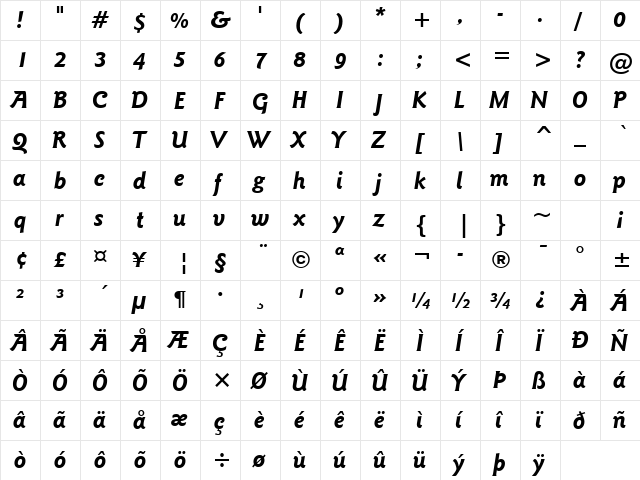
GoudySans Md BT Bold Italic
Design Context for GoudySans Md BT Typeface
GoudySans Md BT offers clean, dependable letterforms without strong stylistic allegiance, making it a practical choice for designers who need flexibility. The slanted form adds forward momentum and visual energy. Its bold stroke weight gives it real presence on the page.
Pro Tip: Try GoudySans Md BT for annotation and caption copy alongside an upright companion — the contrast in angle creates a dynamic but ordered typographic system.